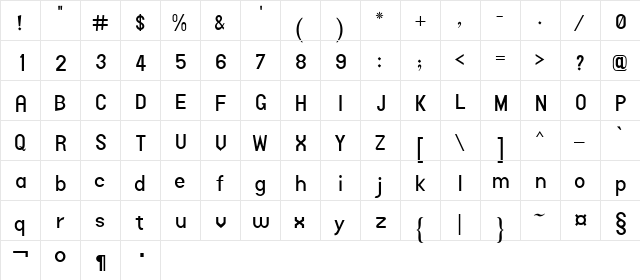
Urdu Web Naskh Regular
| Designer | Mr. Jamil-ur-Rehman |
Design Context for Urdu Web Naskh Typeface
Urdu Web Naskh is a composed and adaptable typeface that performs quietly and consistently across a wide range of design contexts.
Pro Tip: Pair Urdu Web Naskh with a font of contrasting weight or personality to build a more expressive typographic hierarchy.